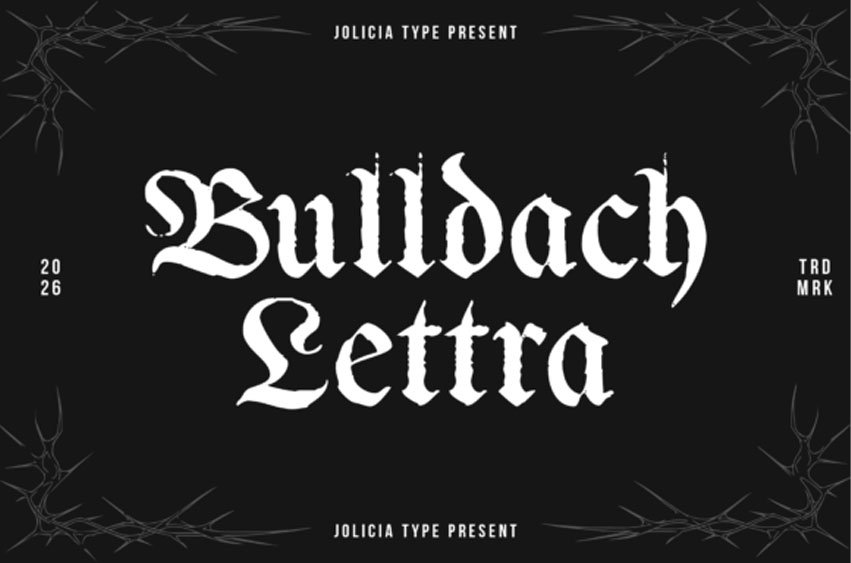
Bulldach Lettra Font is a blackletter typeface that embodies a bold, classic, and expressive character. Inspired by traditional gothic typography, it features sharp letterforms, strong contrasts, and intricate details that evoke a sense of history while maintaining a powerful visual presence.
This font comes in two distinct styles, offering flexibility for a wide range of design needs. The clean style presents a refined and polished look, with solid, well-defined letterforms that are perfect for logos, headlines, and branding requiring a classic yet professional appearance.